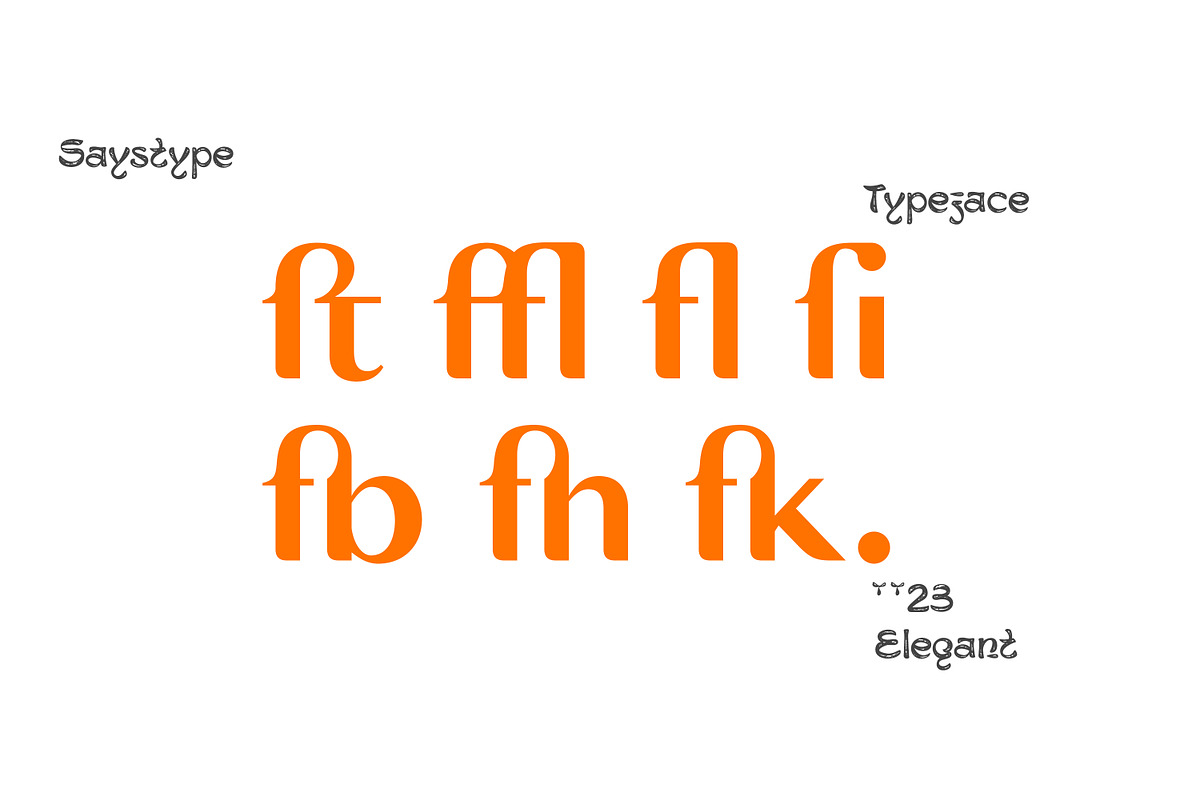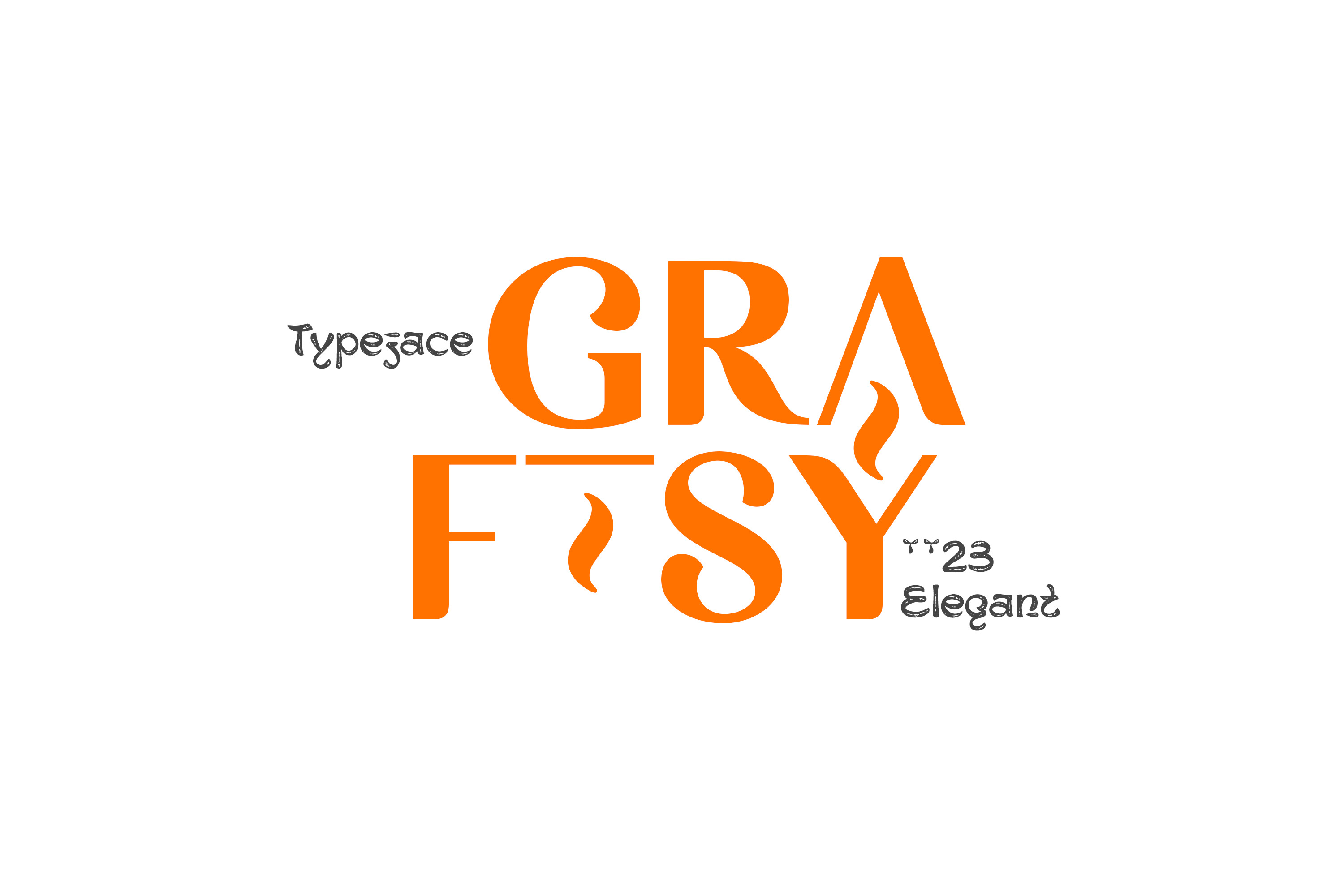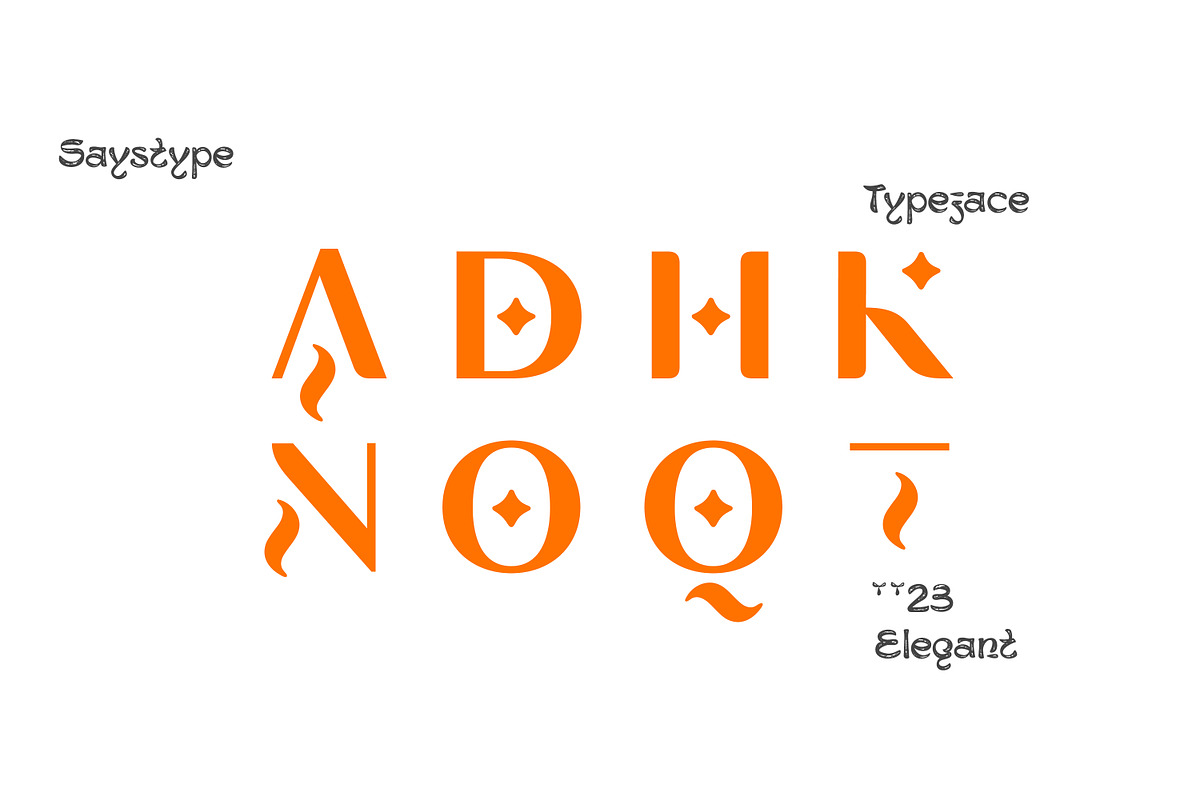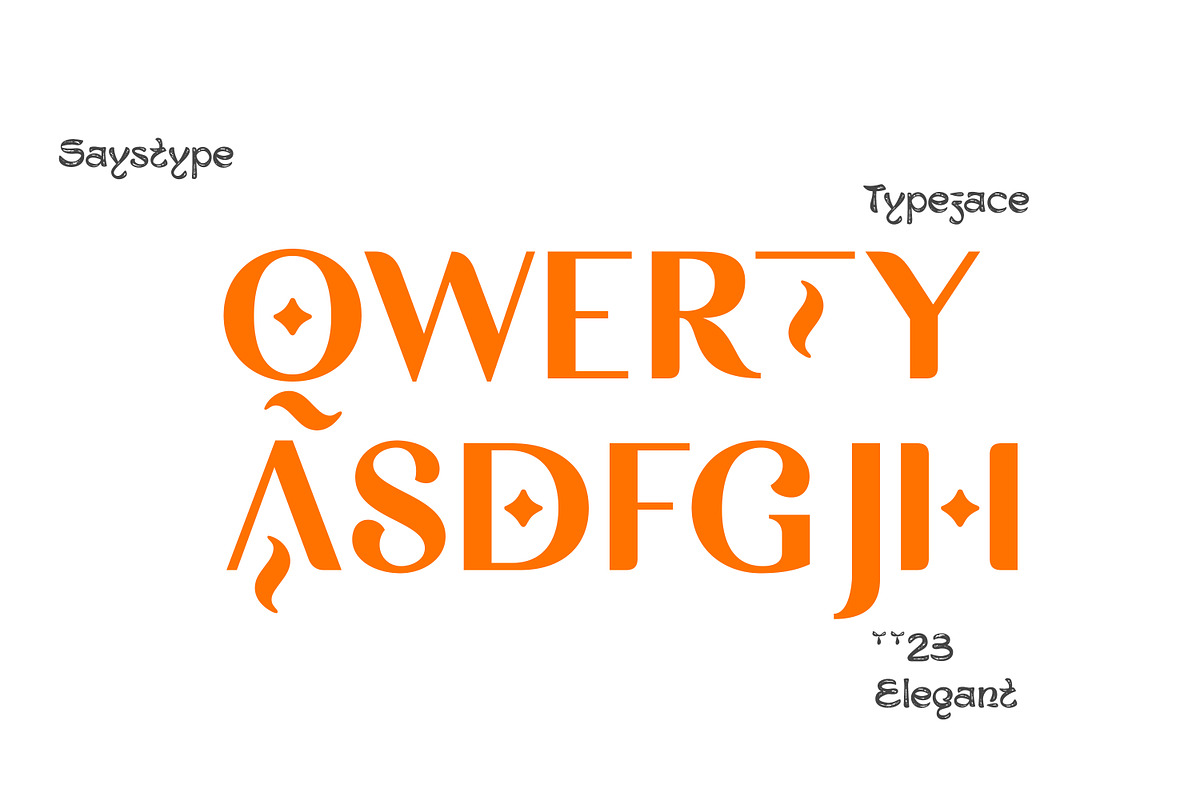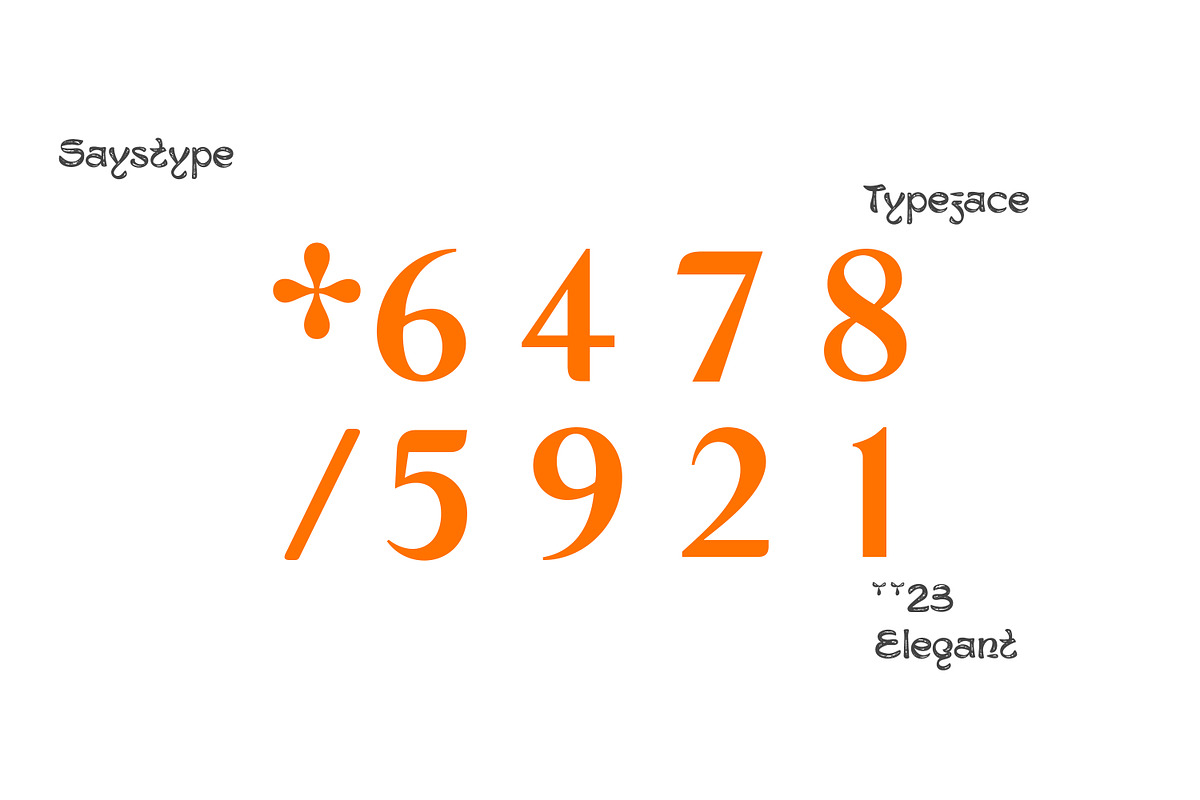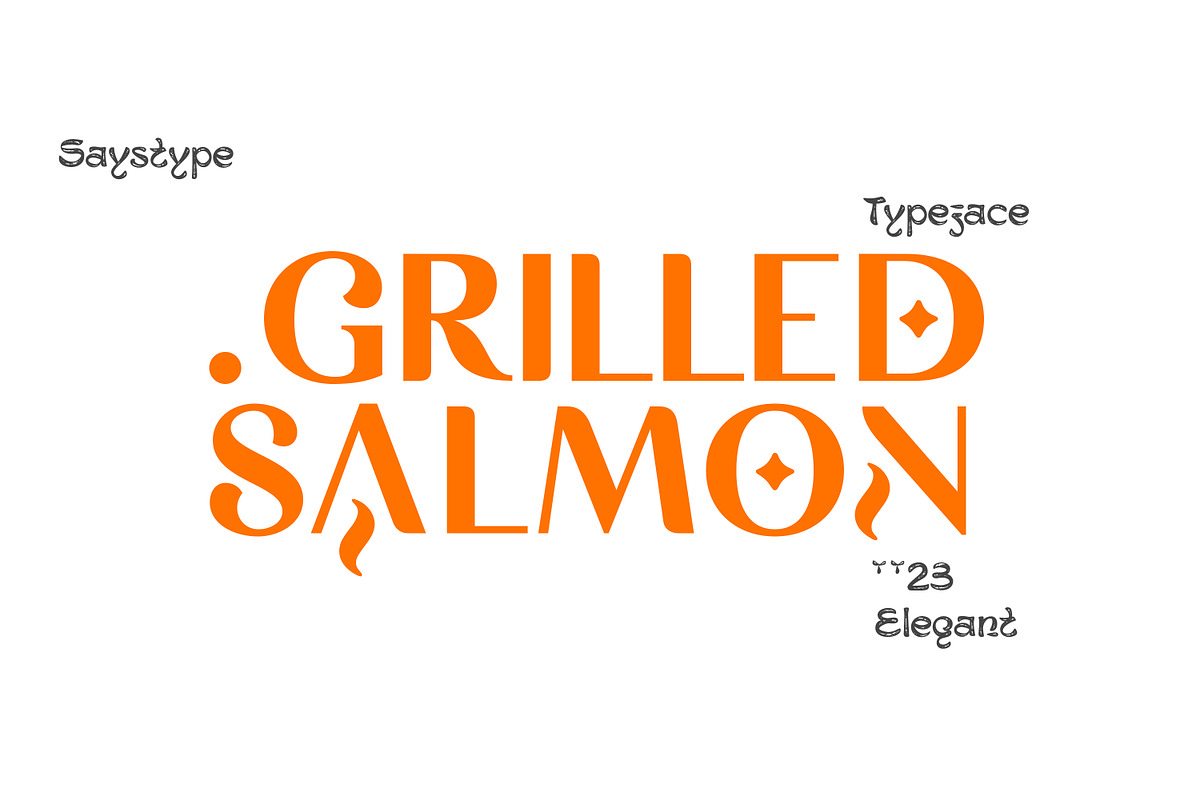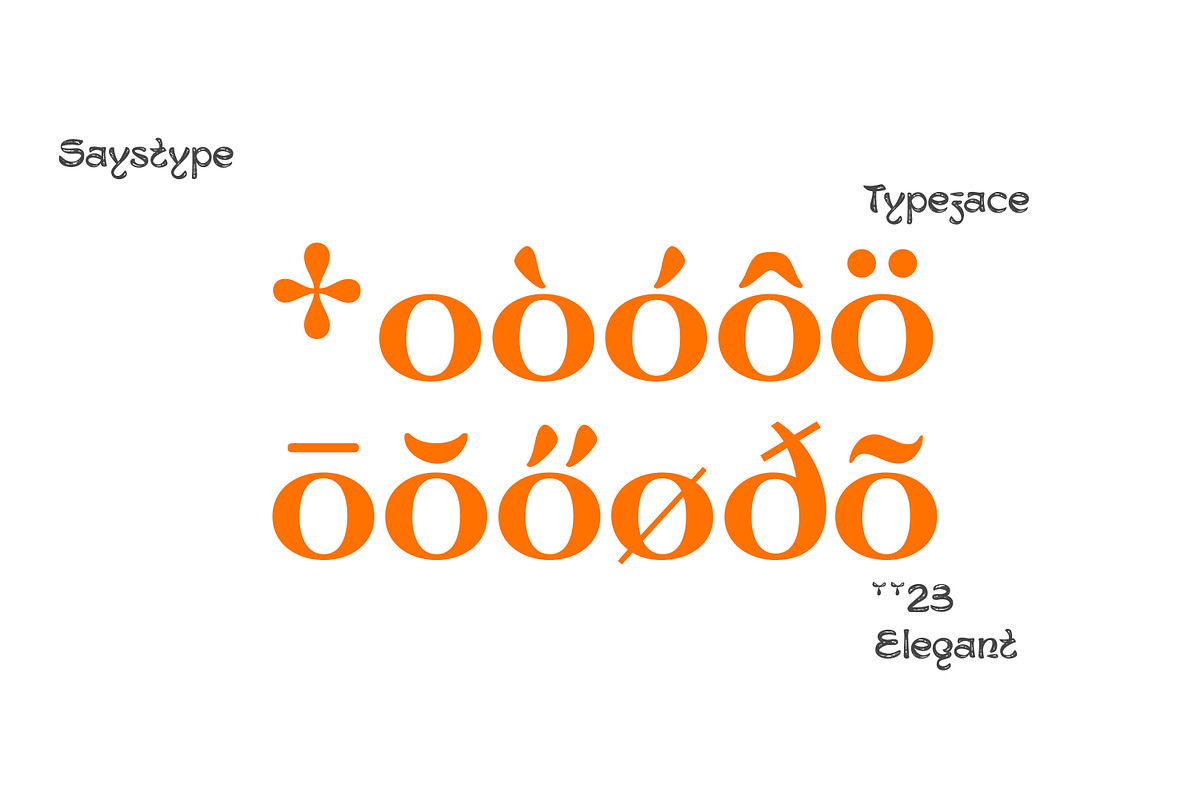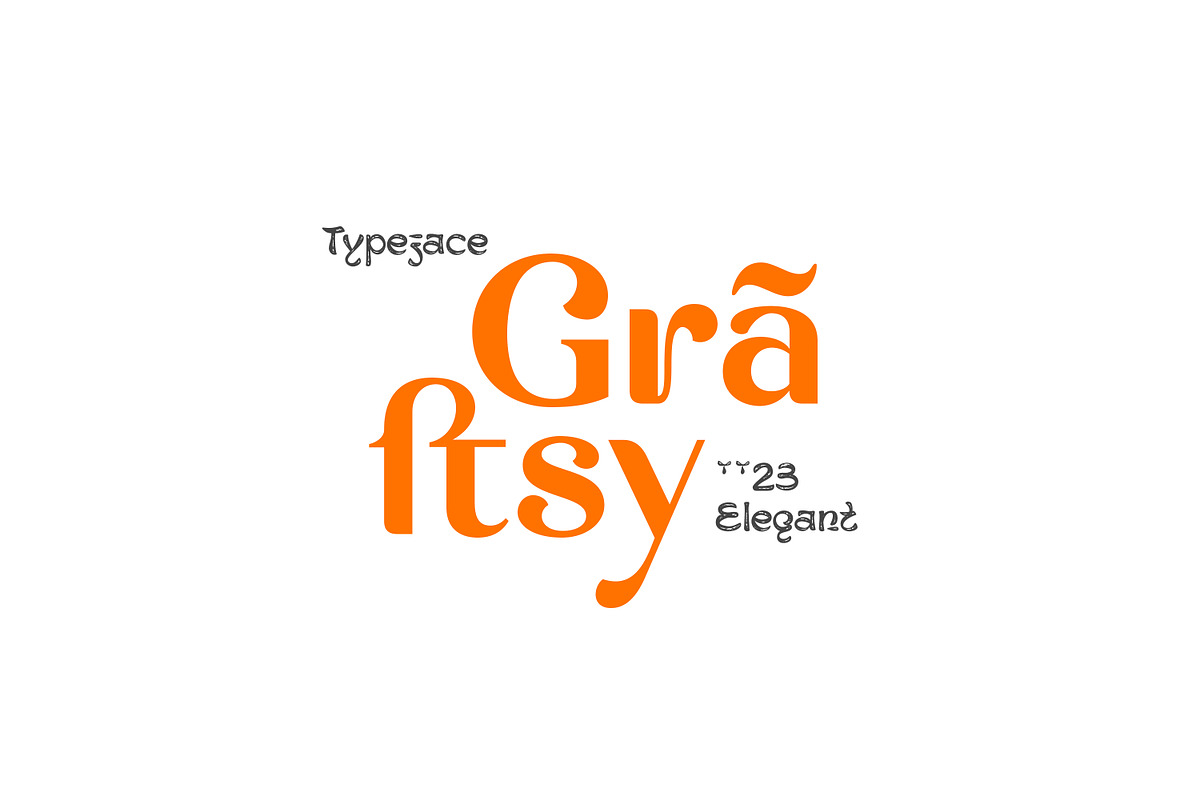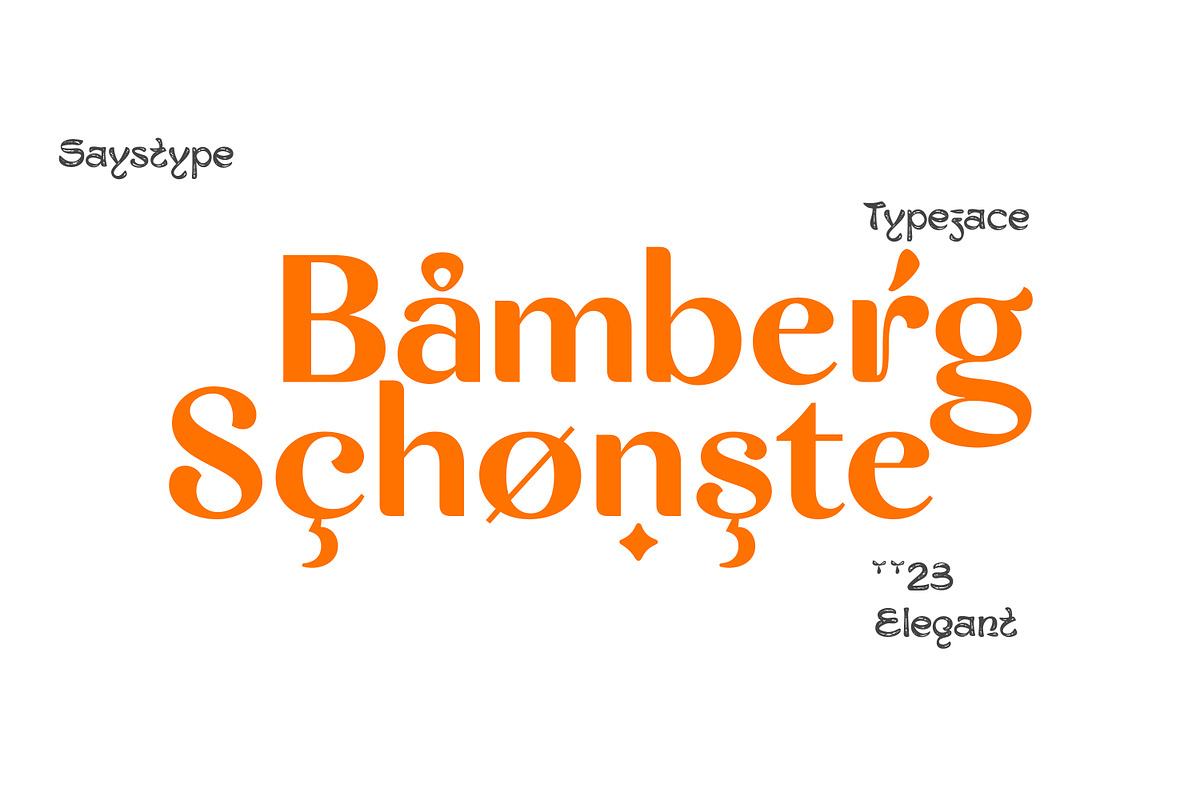
Graftsy Typeface
GRAFTSY Typeface by Saystype
Introducing our new product "Graftsy" Elegant sans font with Semi Rounded Corner, Clean, Stylish and Ellegant style. Suitable for any kind of project such as logos, Branding, App, Letterhead Etc.
Graftsy Features:
- Latin Multilingual Support